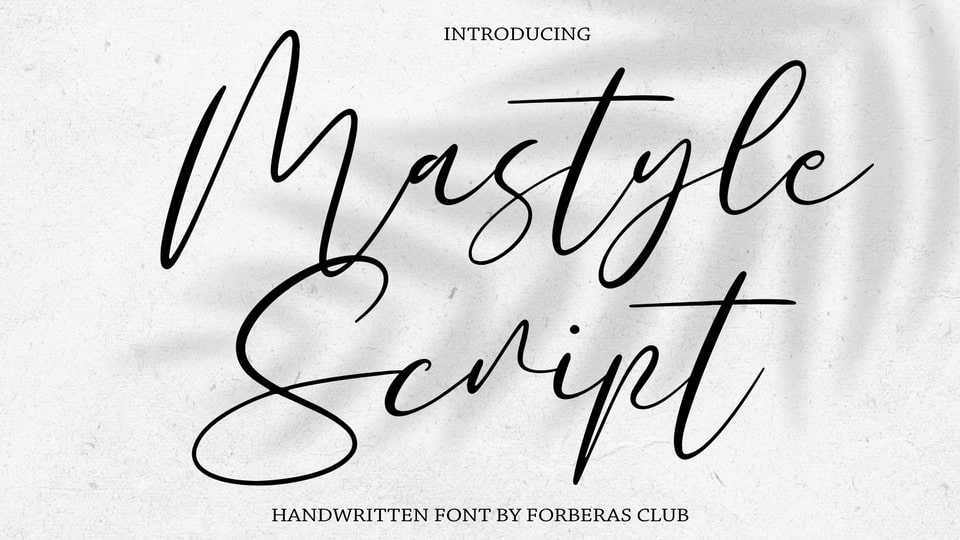
Download Mastyle Script font, a fancy and elegant handcrafted font created to impress your audience. Make your projects dance with this elegant and wonderful font wherever you use it.